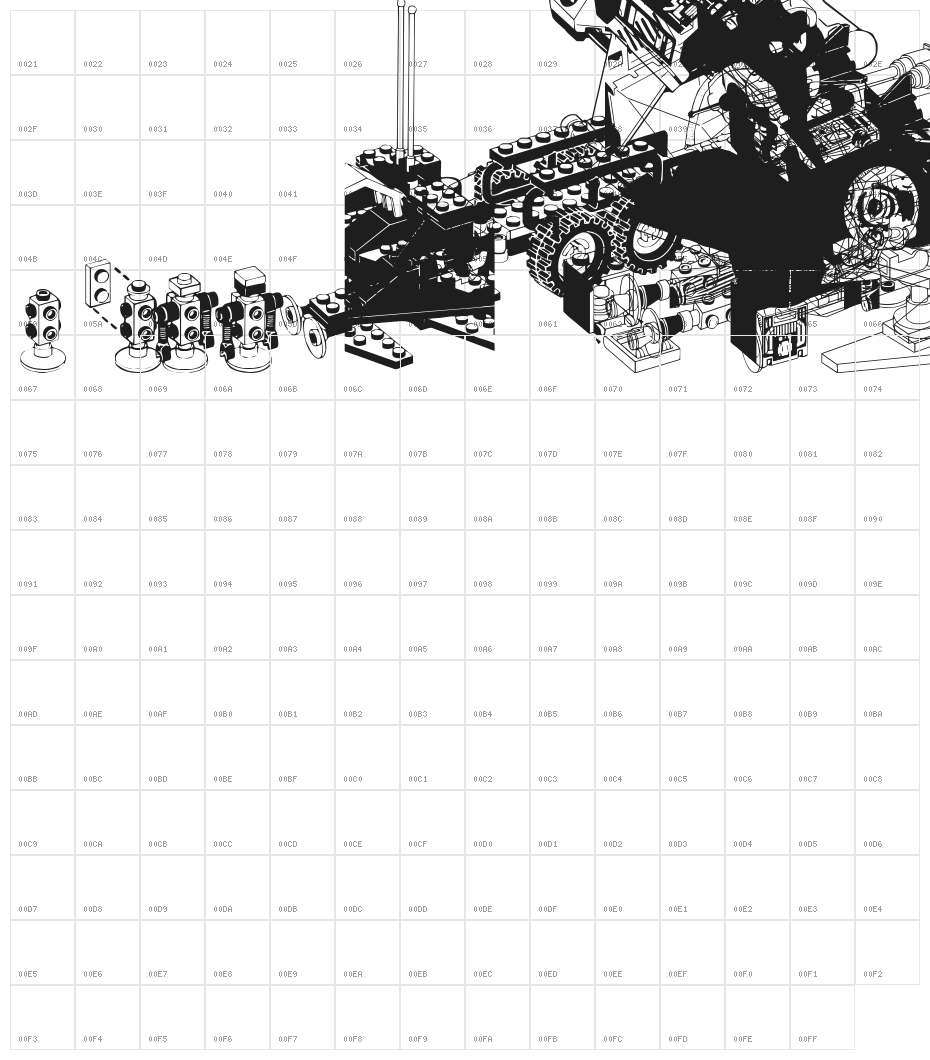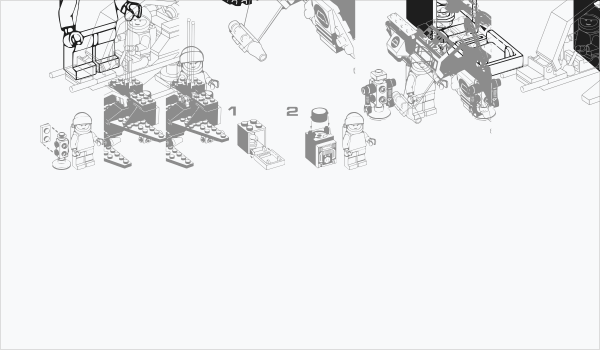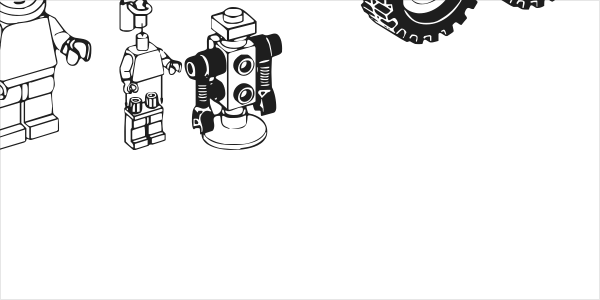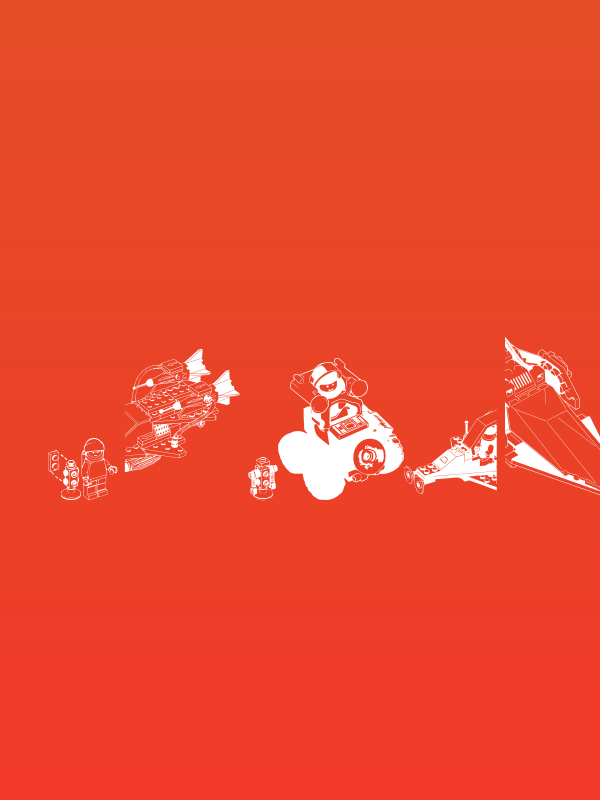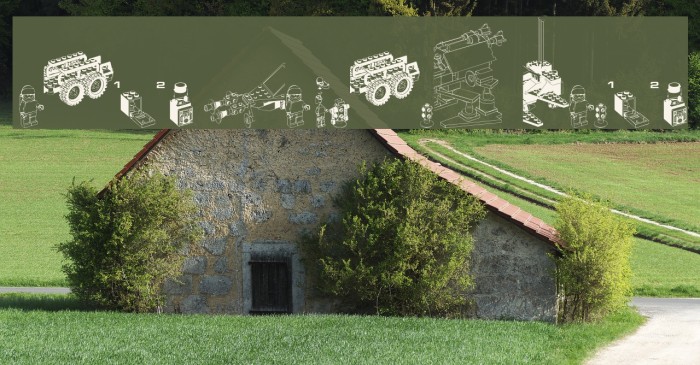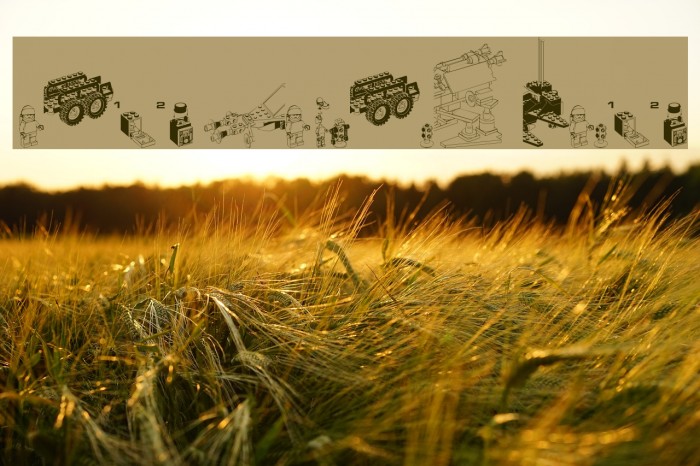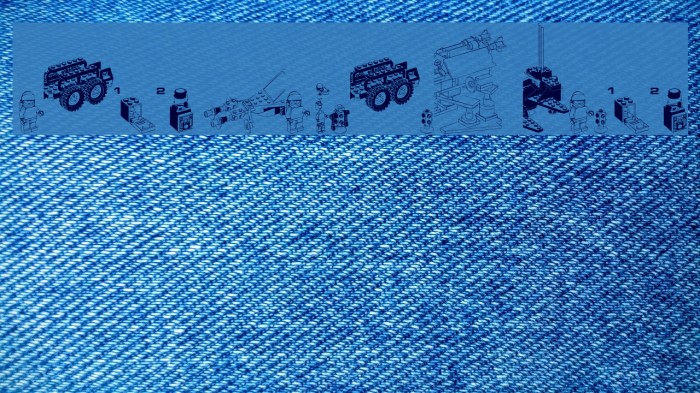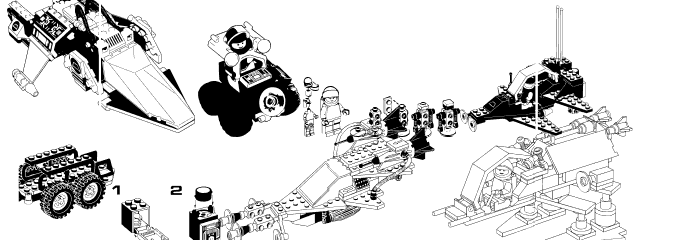
Fenotype dings # lego3 Font
Fenotype dings # lego3 Description
This is not a valid font; the image consists of black and white illustrations of LEGO vehicles and minifigures, resembling instruction manual graphics rather than typographic characters.